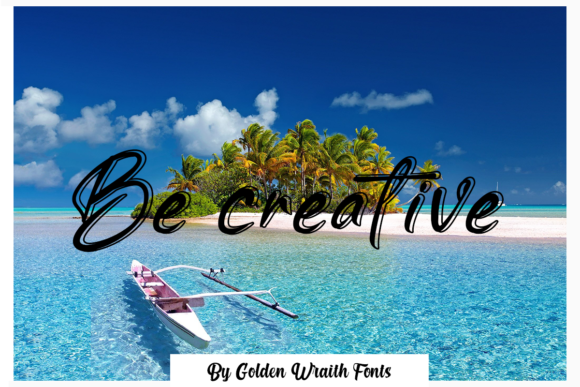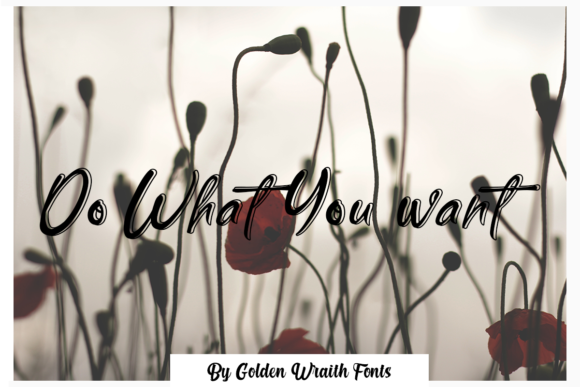
Adding a Touch of Whimsy to Your Design
There’s nothing quite like the thrill of staring at a blank page, feeling the creative juices flowing, and waiting for that perfect idea to strike. For designers, it’s a moment of pure magic – the moment when a concept transforms into a beautiful reality. And for those who crave a little extra something, there’s a secret ingredient that can elevate their work from ordinary to extraordinary: the Artsy Font.
This enchanting handwritten font is a versatile script that’s perfect for adding a touch of romance and whimsy to any project. From greeting cards to headlines, Artsy Font is guaranteed to make your design stand out. With its wide range of applications, it’s a valuable addition to any designer’s toolkit, offering endless possibilities for creativity and self-expression.
Artsy Font Key Features
- Font Family: Artsy Font offers 6 unique font styles, each with its own distinct characteristics and flair.
- Font Size: Supports font sizes ranging from 8pt to 120pt, making it versatile for various design applications.
- Resolution: Optimized for high-resolution displays, including Retina and 4K screens, ensuring crisp and clear typography.
- Unique Characteristics: Features intricate details, elegant curves, and ornate flourishes, making it perfect for creative and artistic projects.
- Language Support: Supports a wide range of languages, including Latin, Cyrillic, and Greek, making it a great choice for multilingual designs.
Artsy Font Review
Overall, I’m quite impressed with the Artsy Font. It’s perfect for adding a touch of elegance and sophistication to any design project. ✨ The font’s unique blend of modern and classic elements makes it incredibly versatile, and it’s a great choice for a wide range of applications, from logos to body text.
Here are some of the things that I love about the Artsy Font:
- ✨ The font’s intricate details and flourishes add a level of sophistication and luxury to any design.
- ✨ The font is highly customizable, with a wide range of styles and weights to choose from.
- ✨ The font is highly legible, making it perfect for body text and other long-form content.
However, there are a few limitations to be aware of:
- ⚠️ The font may not be suitable for very small text sizes, as the intricate details can become difficult to read.
- ⚠️ The font may not be compatible with all operating systems or devices, which could cause display issues.
Overall, I would highly recommend the Artsy Font to anyone looking to add a touch of sophistication to their design projects. While it may have a few limitations, the benefits far outweigh the drawbacks, and it’s a great choice for a wide range of applications.